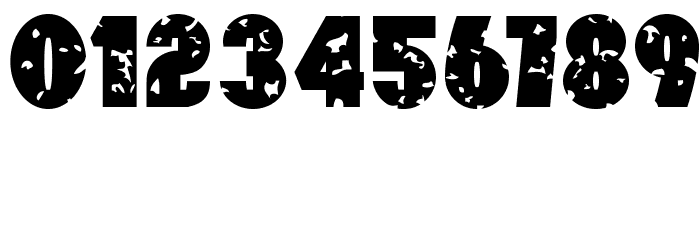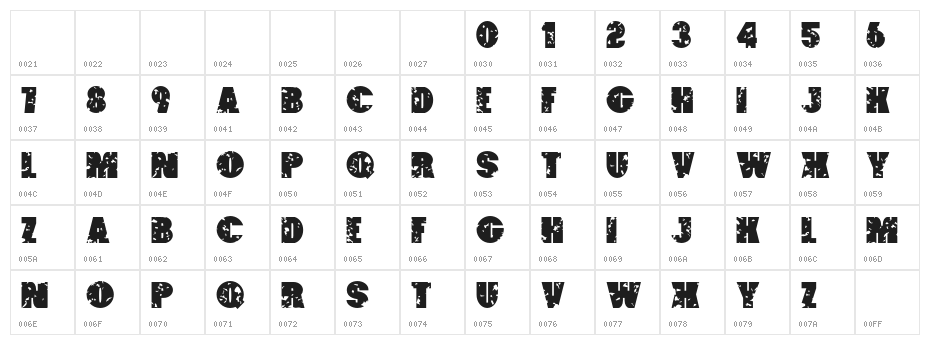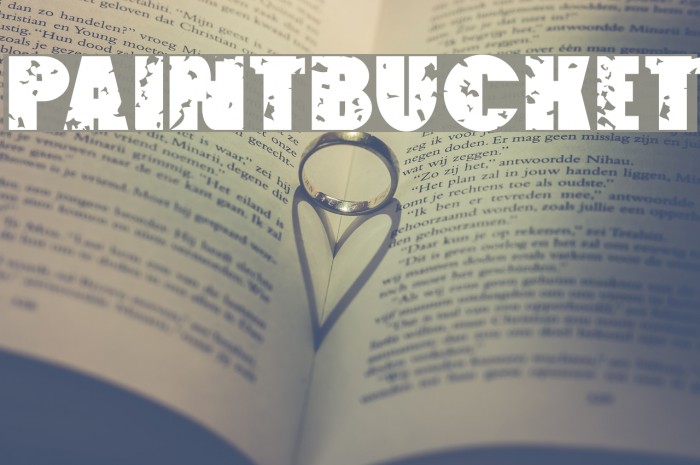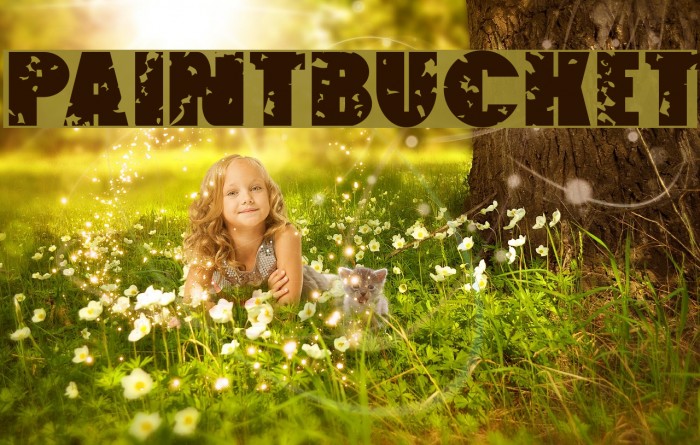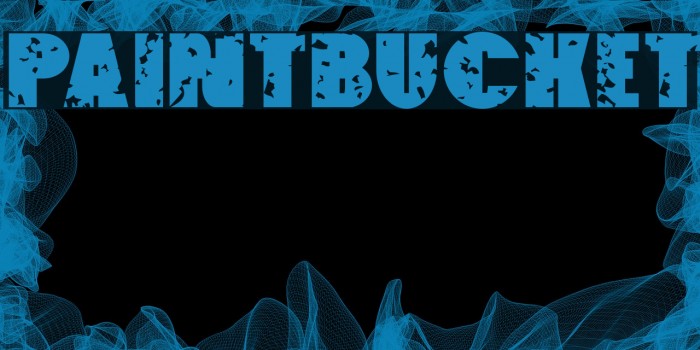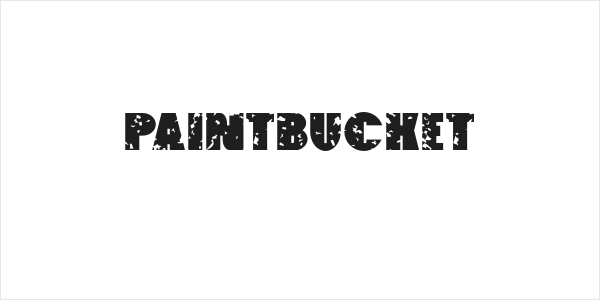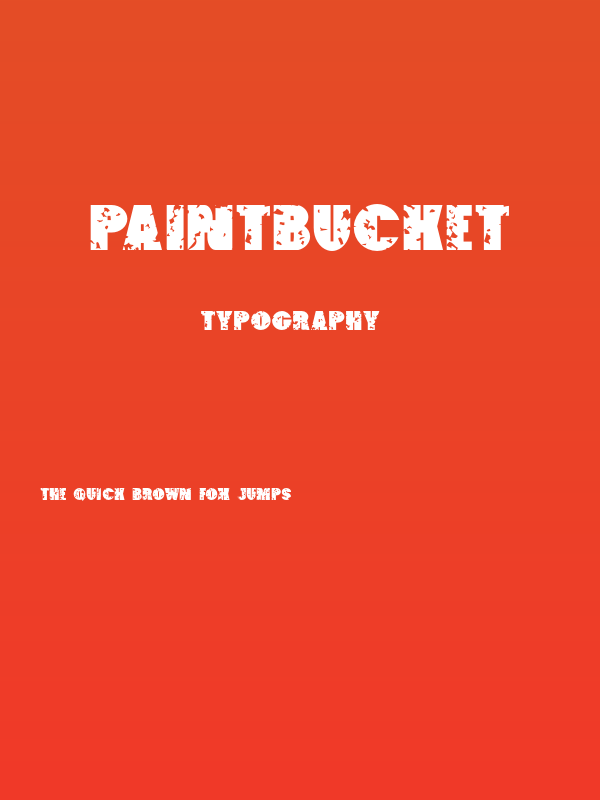
Paintbucket Font
Paintbucket Description
This font features a bold, distressed style with a paint-splatter effect that gives it a rugged, urban appearance. The characters are thick and blocky, with irregular edges that create a sense of movement and energy. The distressed texture adds a layer of complexity, making it ideal for designs that require a gritty, industrial look. The uppercase and lowercase letters maintain a consistent style, while the numbers and special characters follow the same aesthetic, ensuring uniformity across all text elements.
| Overall Style | Urban, Gritty, Industrial |
| Use Case | Logos, Posters, Album Covers |
| Proposed Projects | Ideal for streetwear branding, music album covers, graffiti art, and urban-themed posters. |